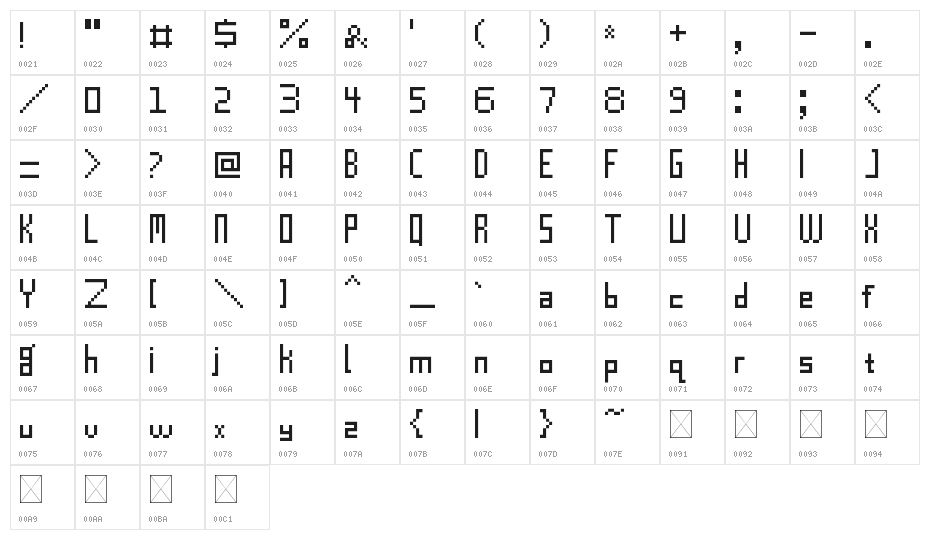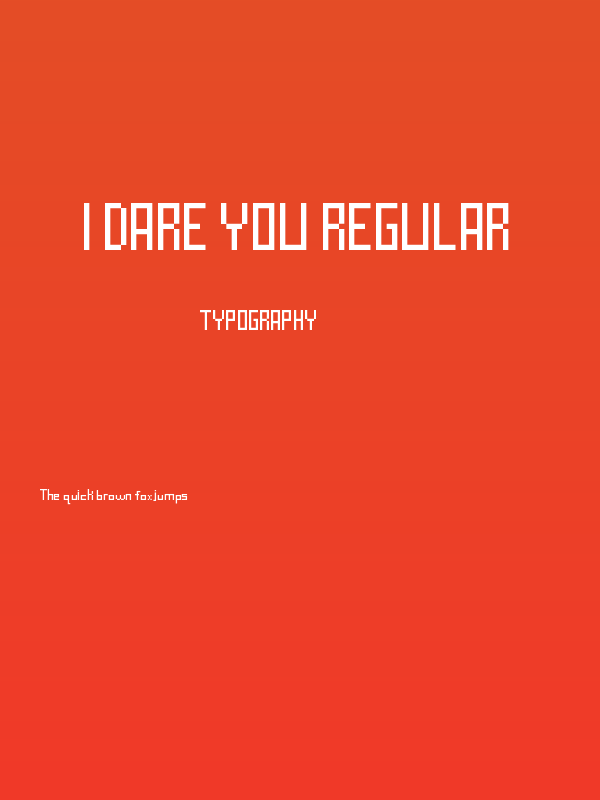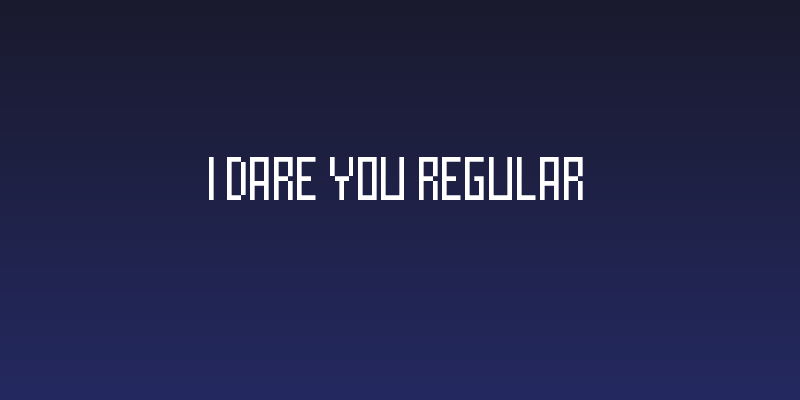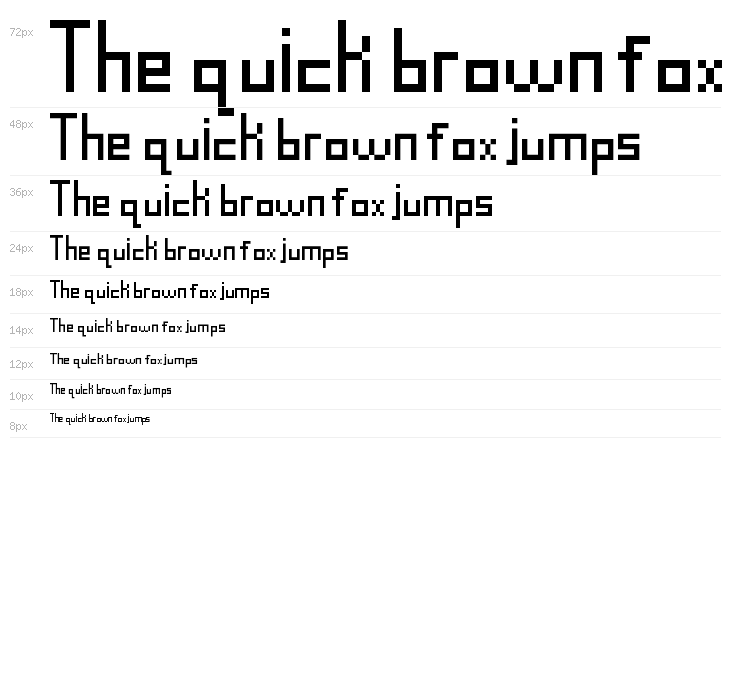
I Dare You Regular Font
A nice pixel font free for use.
| Stile generale | Retro, Digital |
| Caso d'uso | Logos, Headlines, Digital displays |
| Progetti proposti | Ideal for retro video game graphics, digital art, tech-themed branding, and any project requiring a nostalgic digital aesthetic. |